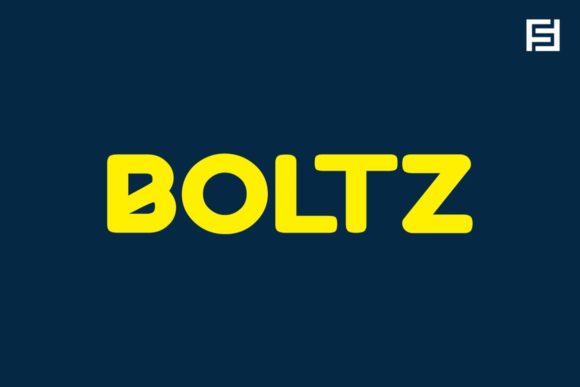
Introducing Boltz Font - The Ultimate Gateway to Eye-Catching Displays!
Embark on a typographic adventure with Boltz, a captivating display font that empowers you to transform your digital creations into mesmerizing masterpieces. Designed with meticulous precision by the renowned Designova, Boltz is the perfect companion for unleashing your creativity and leaving an unforgettable mark on your audience.
Whether you're crafting captivating headlines that demand attention, designing magazine titles that entice readers, or creating eye-catching banners that drive engagement, Boltz has got you covered. Its unique character and effortless style make it a versatile choice for marketing materials, promotional posts, and social media content, ensuring that your message will resonate with your audience.
With its charming simplicity and playful aesthetic, Boltz adds an enchanting touch to any project. Its carefully crafted curves and sharp edges create a harmonious balance that captivates the eye and invites exploration. Whether you're designing for print or digital platforms, Boltz seamlessly adapts to any medium, ensuring that your creations shine across multiple channels.